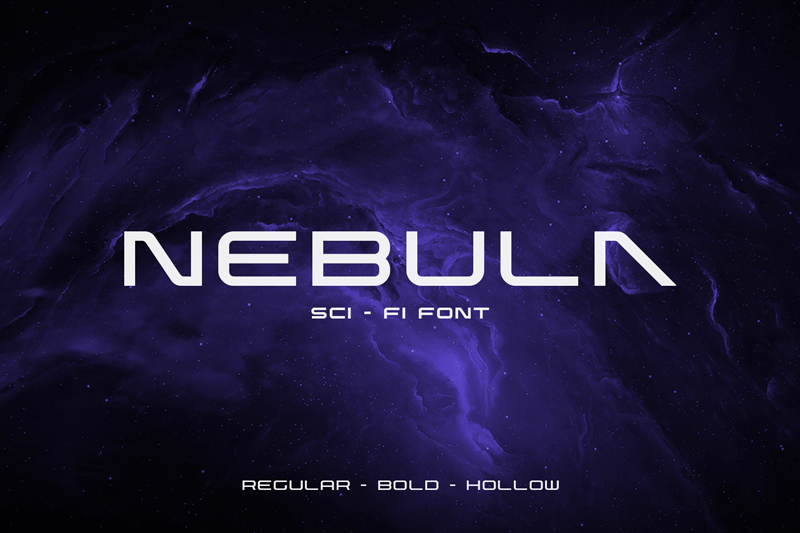
Nebula is a futuristic and dark display font. It will elevate any Science Fiction themed project! Full version : https://www.creativefabrica.com/product/nebula/ref/236744/ See more : https://www.behance.net/fadielm70 |